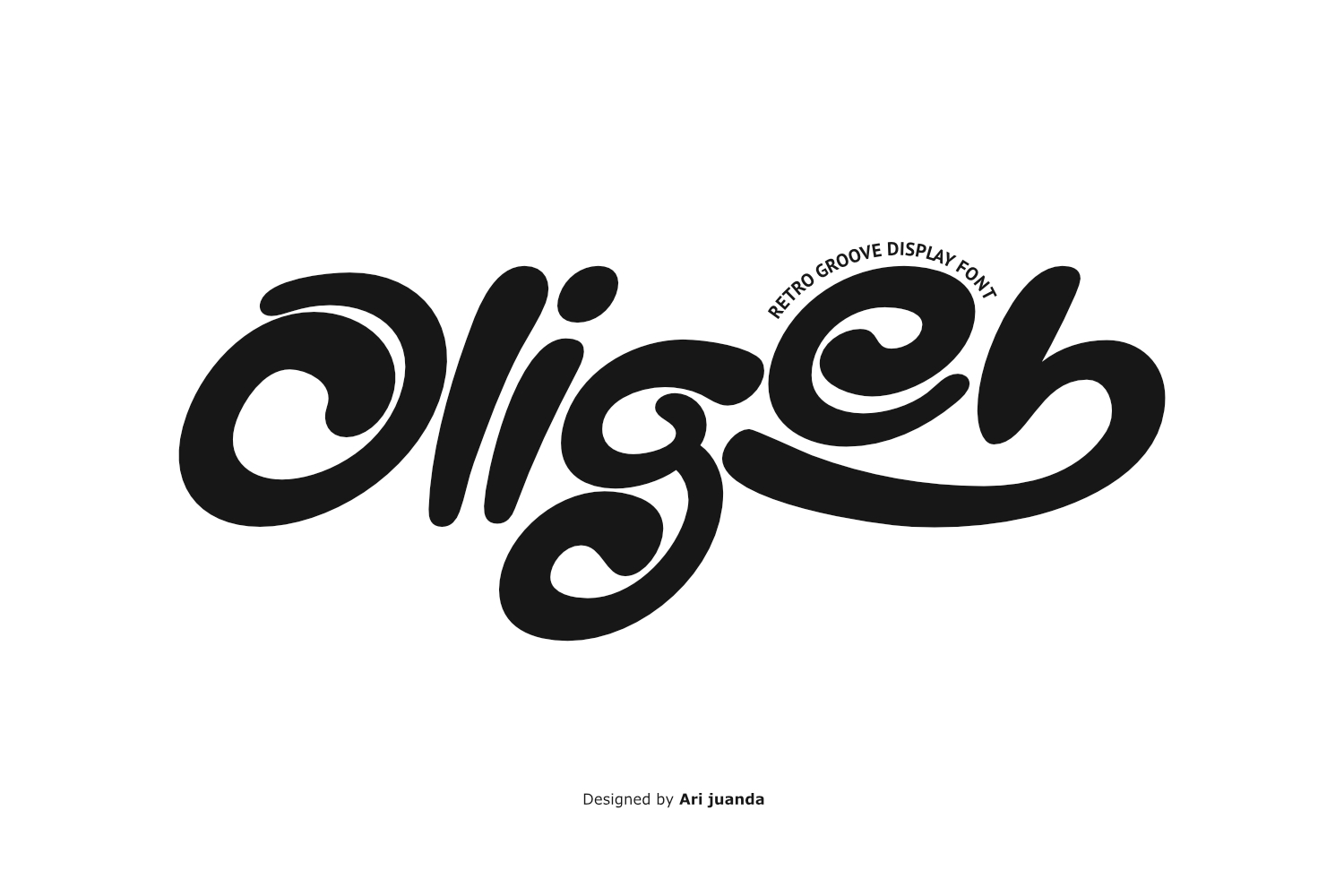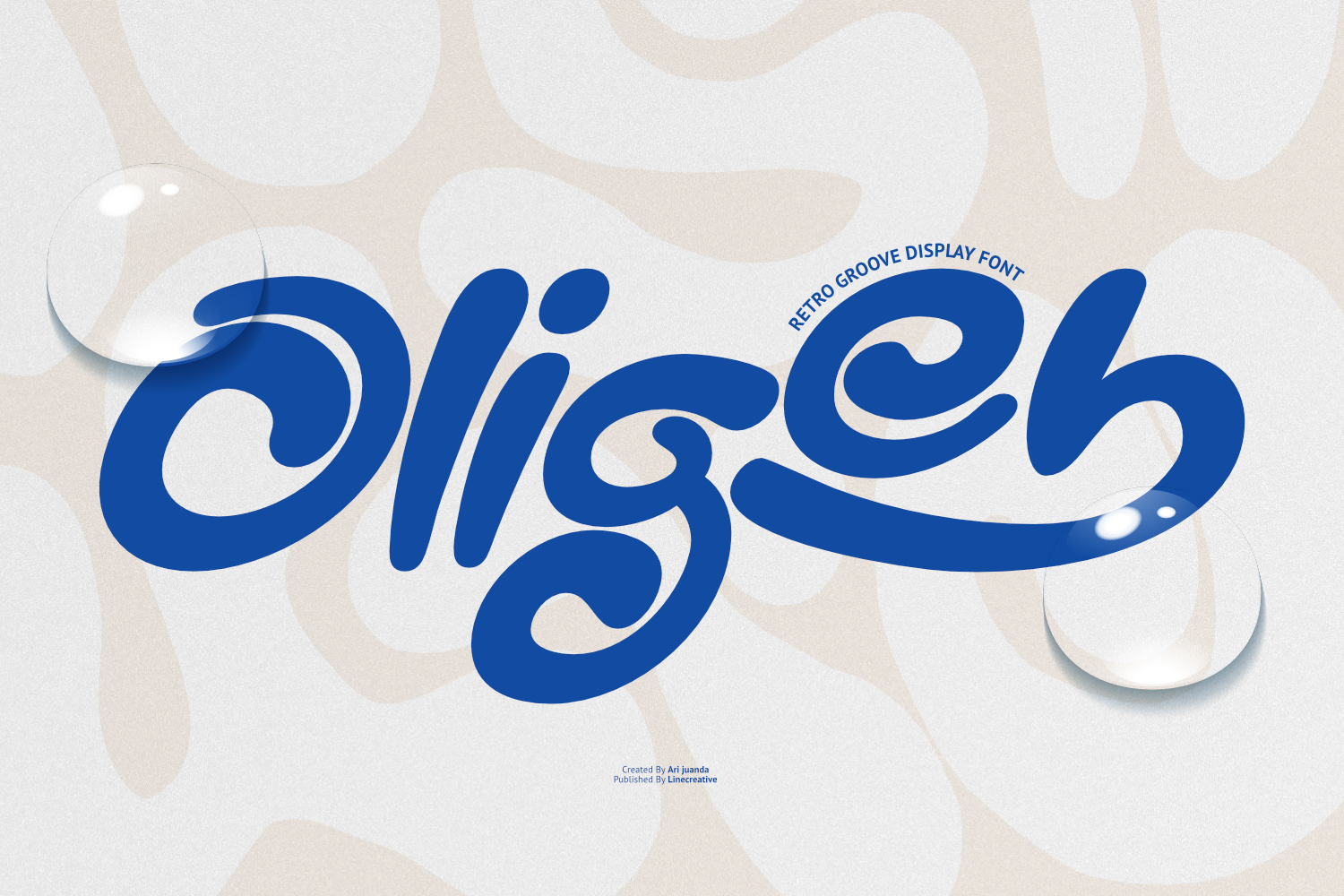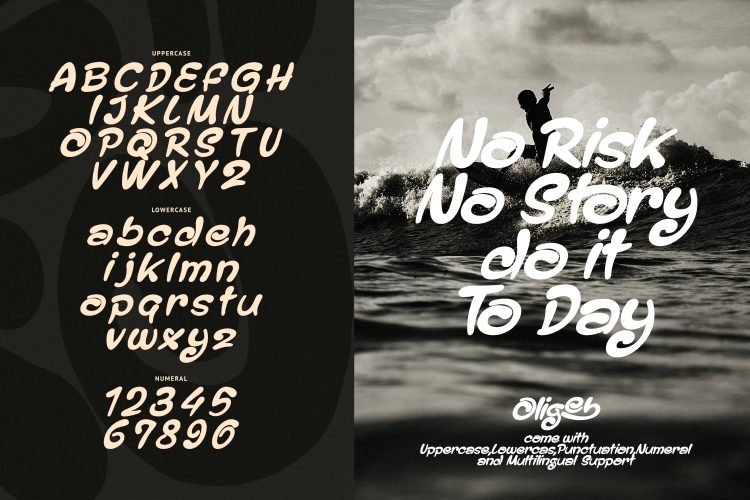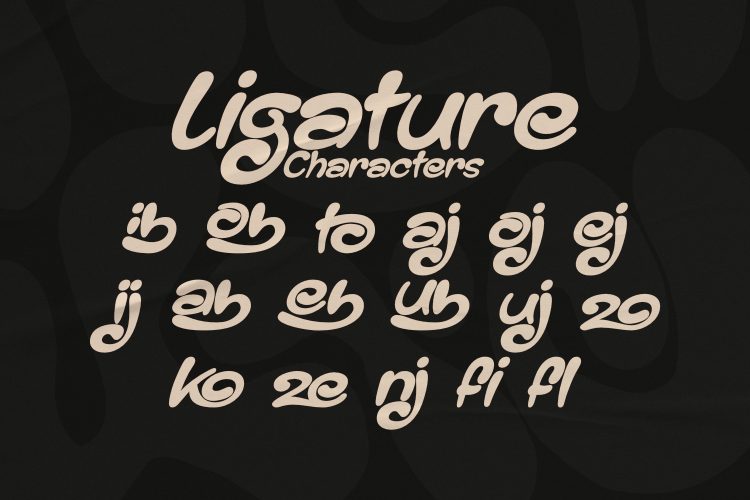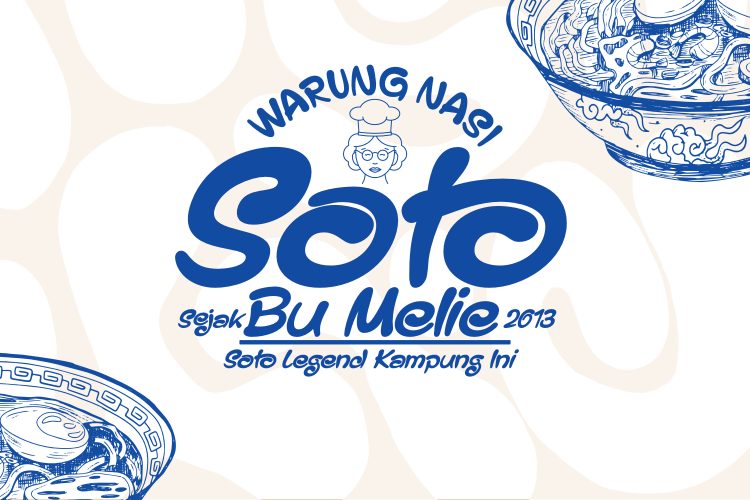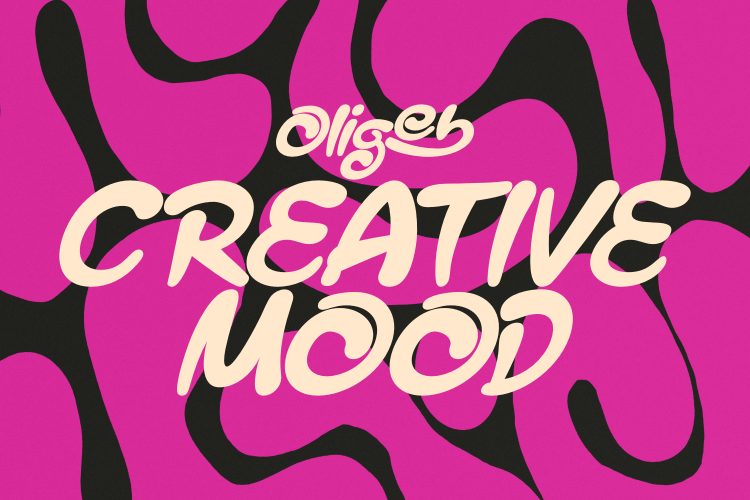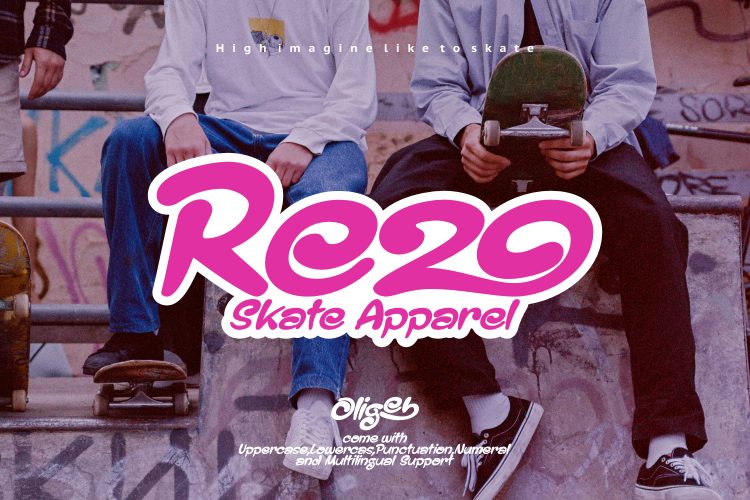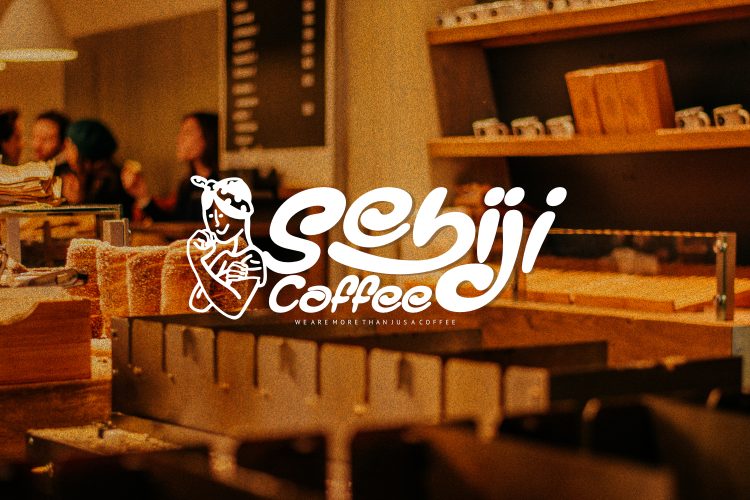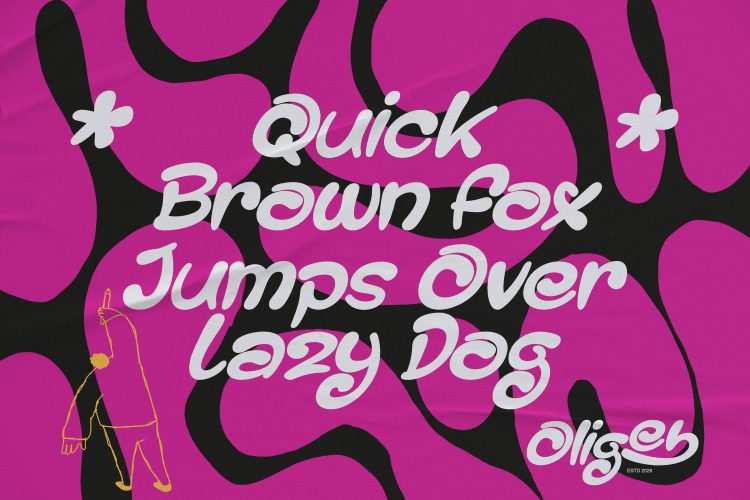
Oligeb Font Official – Retro Groove Display by Ari Juanda
Oligeb – Retro Groove Display Font
Meet Oligeb, a bold retro groove display font inspired by the free-spirited energy, expressive typography, and colorful visual culture of the 1970s. With its smooth curves, playful swashes, flowing shapes, and distinctive letterforms, Oligeb brings a strong nostalgic character while maintaining a fresh and versatile appearance for modern design projects.
Designed to capture the movement and optimism of classic retro typography, Oligeb combines bold forms with organic details that give every word a lively and expressive personality. Its rounded shapes and dynamic construction create a natural sense of rhythm, making this retro groove display font especially effective when typography needs to become an important visual element rather than simply supporting the design.
Oligeb works beautifully for projects inspired by vintage music, surf culture, summer aesthetics, funky branding, and old-school advertising. Its handcrafted appearance adds warmth and personality to headlines, logos, packaging, posters, apparel graphics, and promotional artwork. Whether you are creating something nostalgic or simply looking for a display typeface with a playful personality, Oligeb provides a distinctive visual voice.
Oligeb Retro Groove Display Font – Why You’ll Love It
Oligeb is made for designers who want expressive typography with a strong retro identity. Its flowing letterforms and smooth curves create a friendly and energetic impression, while the bold construction gives your designs enough visual presence for large headlines and display applications.
• Authentic retro groove style
• Bold and expressive letterforms
• Smooth curves and flowing shapes
• Playful swashes and decorative details
• Unique handcrafted appearance
• Strong visual personality for branding
• Uppercase and lowercase characters
• Numerals and punctuation
• Multilingual support
• Easy to use for a wide range of creative projects
The combination of bold forms and playful movement makes Oligeb particularly effective when used at larger sizes. It can bring personality to a short brand name, headline, poster title, product label, or apparel graphic without requiring excessive decoration around the typography.
Perfect For
The versatile character of Oligeb makes it suitable for many creative applications, especially projects that benefit from a nostalgic or energetic visual direction.
• Retro and vintage branding
• Coffee shops and restaurants
• Surf and beach lifestyle designs
• Music posters and festival artwork
• Album covers and promotional graphics
• Packaging and product labels
• T-shirts and merchandise
• Logo and identity design
• Social media graphics
• Advertising campaigns
• Event posters
• Editorial headlines
• Stickers and creative prints
From a vintage-inspired coffee package to a colorful summer campaign, Oligeb can adapt to different visual environments while maintaining its recognizable retro character. It also works well when paired with simple supporting typefaces, allowing the expressive display lettering to remain the main focus of the composition.
Bring Retro Energy to Your Designs
A great display typeface can instantly establish the mood of a project, and Oligeb is designed to do exactly that. Its combination of bold proportions, smooth curves, expressive details, and nostalgic styling makes it a strong choice for designers exploring the visual language of the 70s while creating contemporary artwork.
Use Oligeb for bold headlines, memorable logos, colorful packaging, music artwork, fashion graphics, or playful branding. Its distinctive shapes can help transform ordinary words into an important part of the visual identity.
If your project needs typography with warmth, movement, personality, and a genuine retro feeling, Oligeb – Retro Groove Display Font brings together the expressive spirit of vintage design with the flexibility needed for modern creative work.
Bring the spirit of the 70s into your designs and let Oligeb deliver bold personality, playful movement, and unforgettable retro charm.